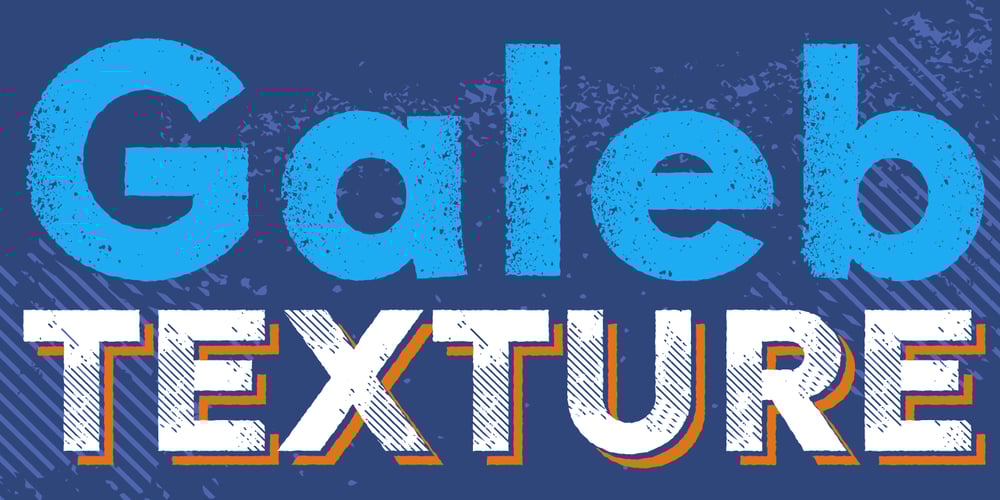
Galeb Texture
Galeb Texture font
Galeb Texture Font Family was designed by Slobodan Jelesijevic and published by Tour De Force. Galeb Texture contains 3 styles and family package options. Galeb Texture is textured version of our Galeb font family.